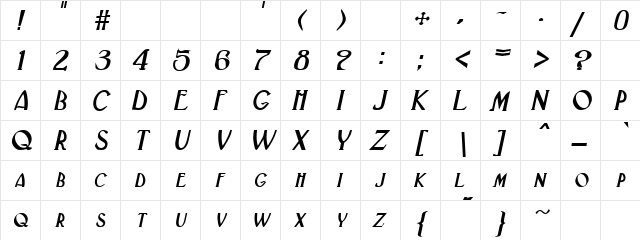
Gatsby BoldItalic
Design Context for Gatsby Typeface
Gatsby offers clean, dependable letterforms without strong stylistic allegiance, making it a practical choice for designers who need flexibility. The slanted form adds forward momentum and visual energy. The heavy weight commands attention and anchors typographic hierarchies.
Pro Tip: Try Gatsby for annotation and caption copy alongside an upright companion — the contrast in angle creates a dynamic but ordered typographic system.